Your logo is more than just a name; it’s the visual identity of your brand. That’s why choosing the best fonts for logos is so important. The right font can instantly communicate your brand’s style, values, and personality. In this article, you’ll discover a list of fonts that are perfect for logo design, each with a unique character to help your brand stand out.
Key Takeaways:
- The right font can define your brand’s personality and message.
- Choose a font that suits your logo’s purpose.
20 Best Fonts for Logos That Make a Lasting Impression
Below are handpicked fonts that work beautifully for logo design. Let’s explore your best options!
1. Brienny Display
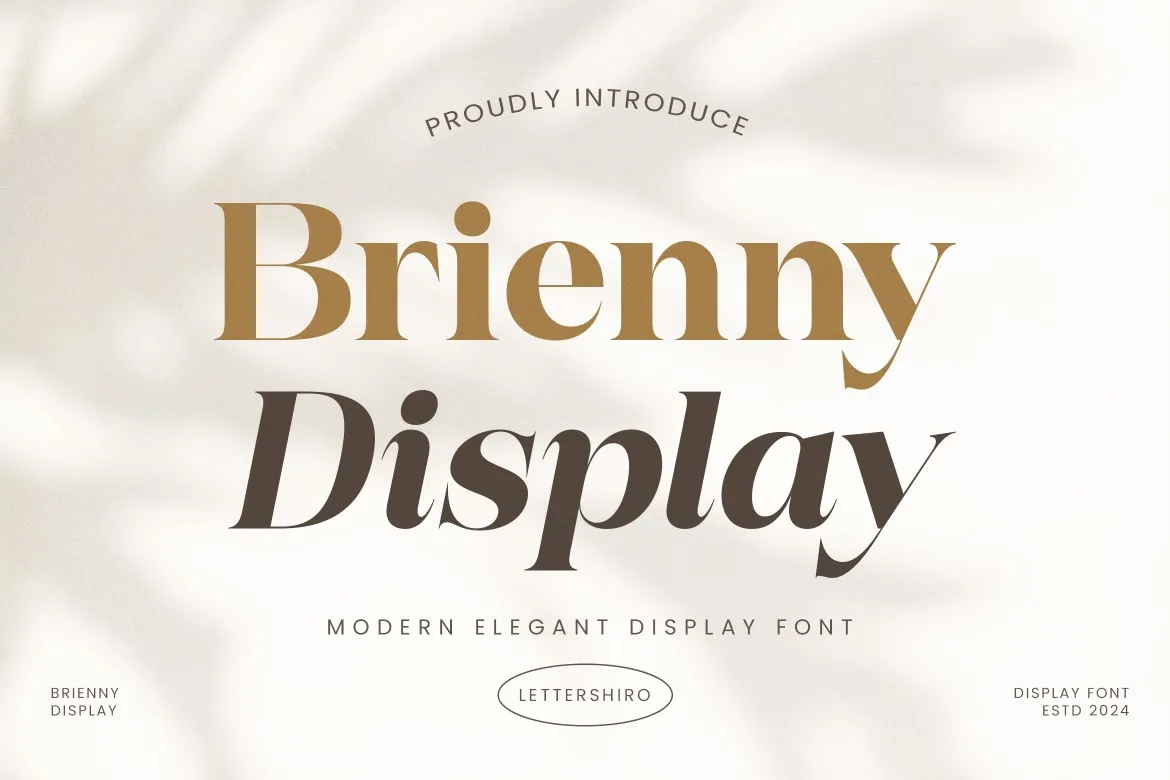
Do you want a logo that reflects both a professional and stylish identity? Just look at Brienny! It is a modern serif font with elegant curves, great to choose for skincare and decor logos.
2. Grand Retro
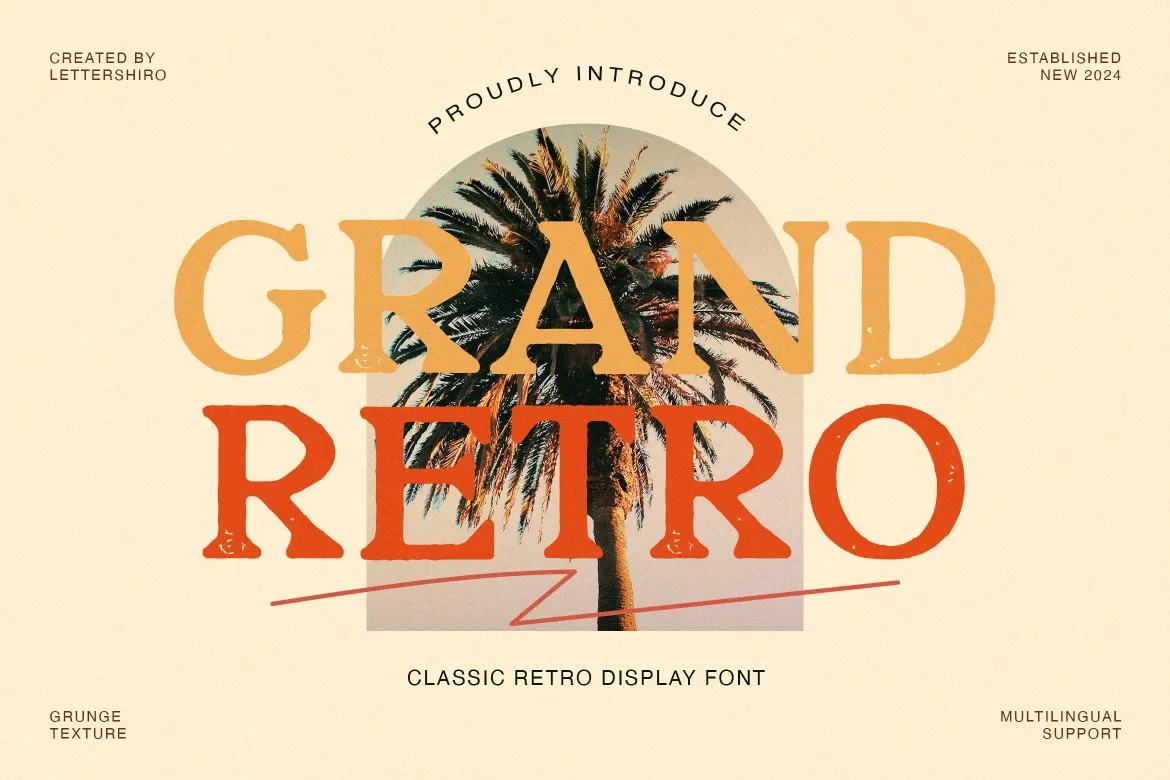
Here is a vintage display font that combines nostalgic charm with modern elegance for drink, barber, and clothing logos. Give a classic, old-school feel with a stylish contemporary twist.
3. Maxim
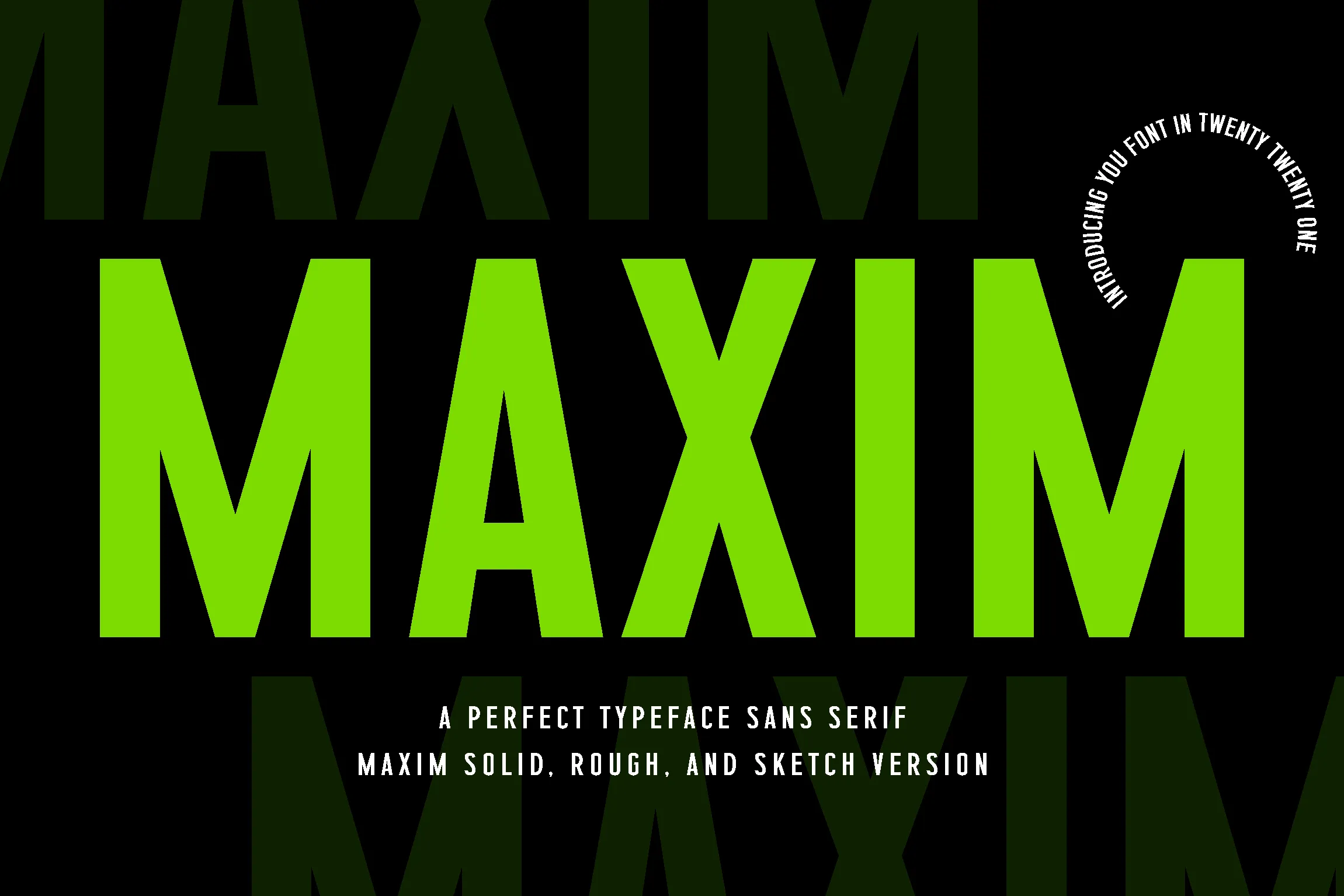
Maxim is a go-to pick for sports branding. Its bold, dynamic style makes it perfect for designs that need to stand out. This is one of the cool fonts for logos that leave a strong impression in both print and digital media.
4. Brown Chocolatte
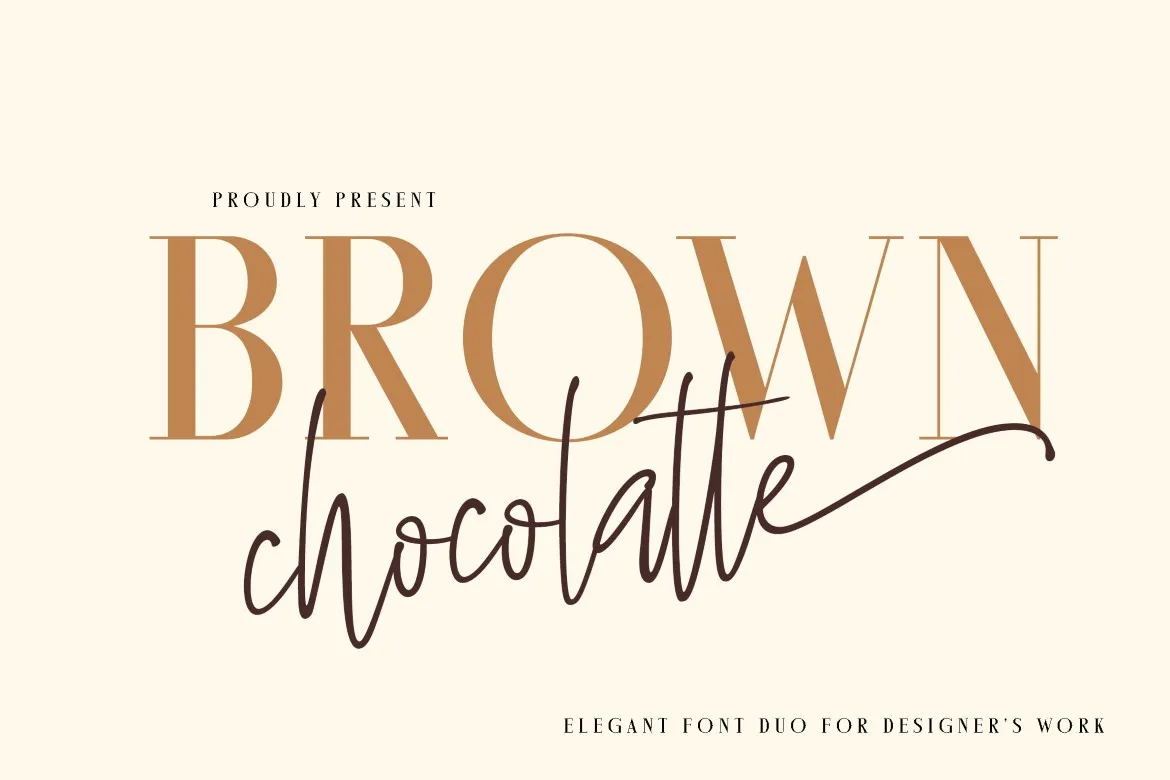
It has a creative yet polished touch, especially for photo studio branding. This font combines a refined serif and a graceful script that offer flexibility.
5. Bellova
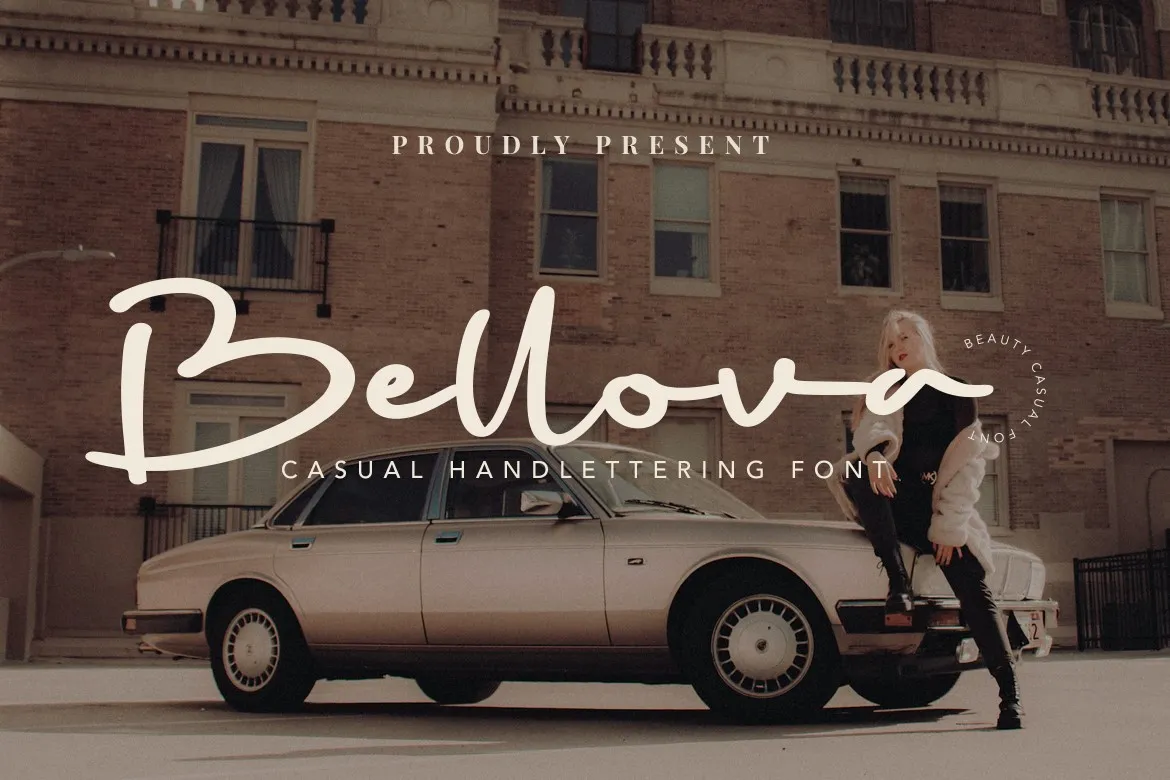
Skin care, interiors, and wedding planners’ logos work well with this font. It offers smooth, flowing lines that combine casual charm with modern elegance, perfect for adding a unique and artistic touch.
6. Alena
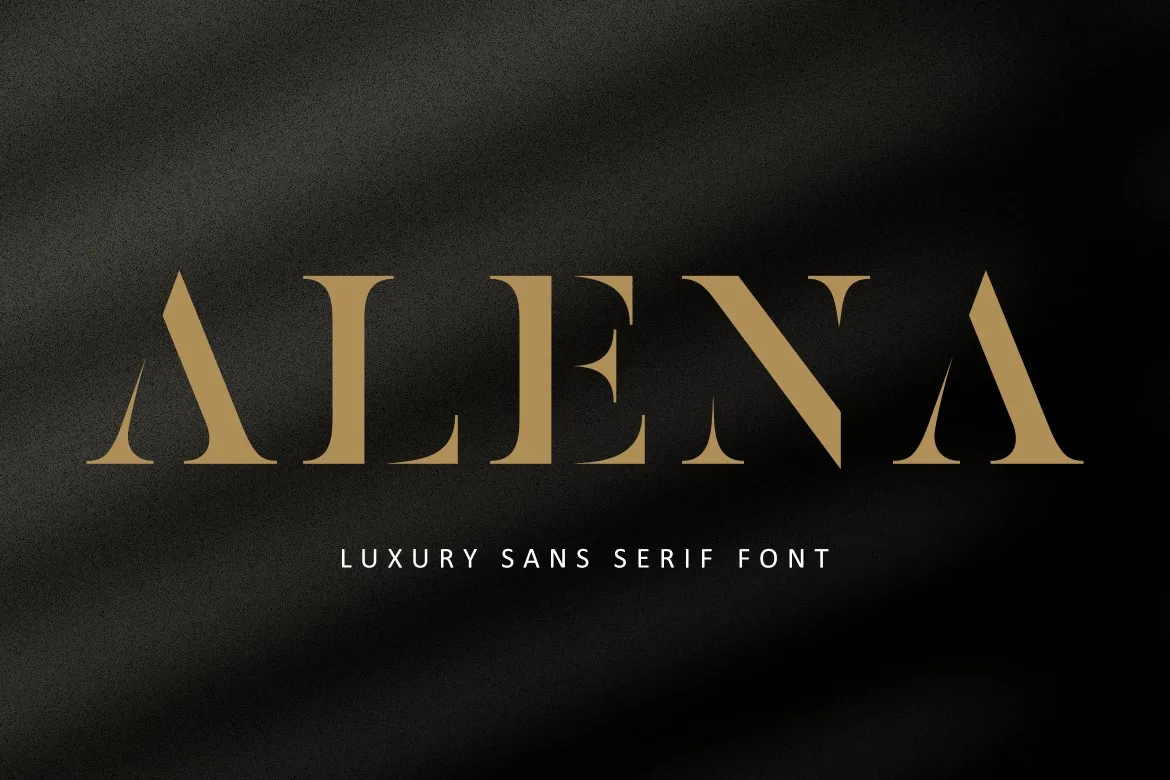
Still confused about picking a font that captures timeless vibes with a modern touch? Alena offers clean lines and graceful curves, making it the perfect choice for high-end logo designs.
7. Lettersiro Font Duo
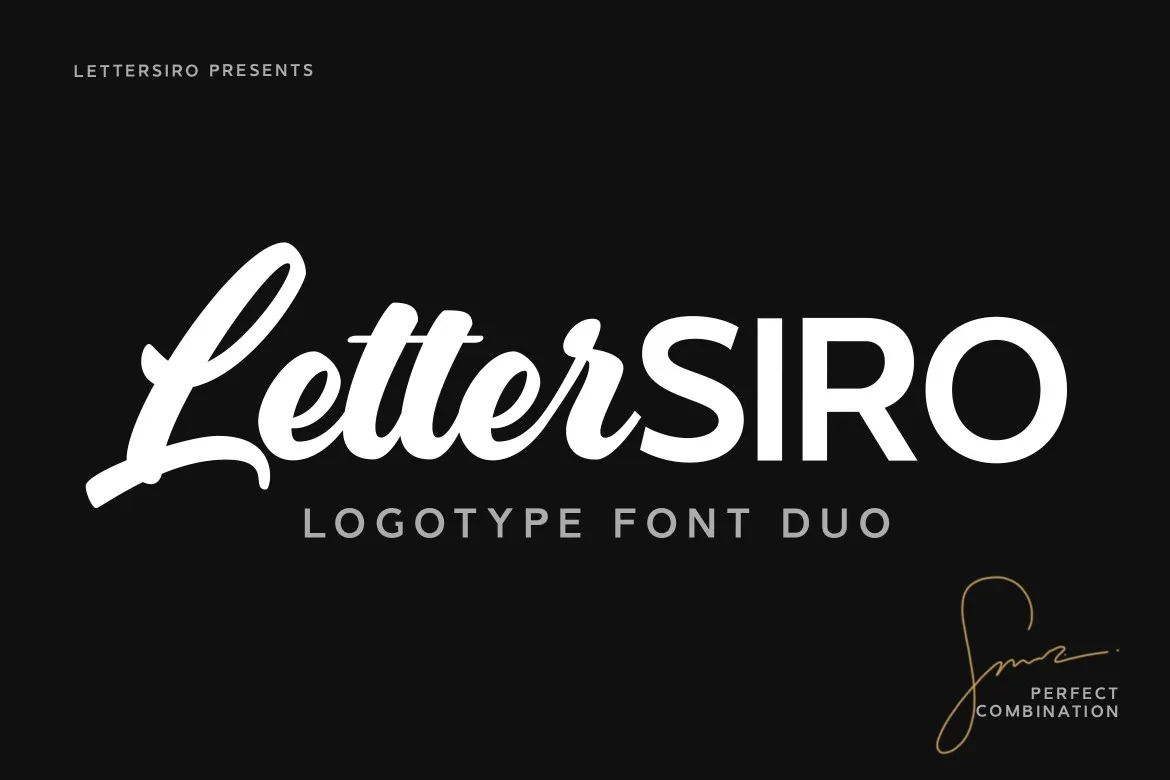
Lettersiro Font Duo combines an elegant script with a clean sans-serif, creating a modern, stylish blend perfect for logos, signatures, and wedding designs. It stands out among the top fonts for logos thanks to its versatility and balanced aesthetic.
8. Gloria
Gloria perfectly blends modern style with classic elegance. This romantic serif font, with its graceful ligatures, brings charm and sophistication to hotel or restaurant logos.
9. Amsterdam Serif
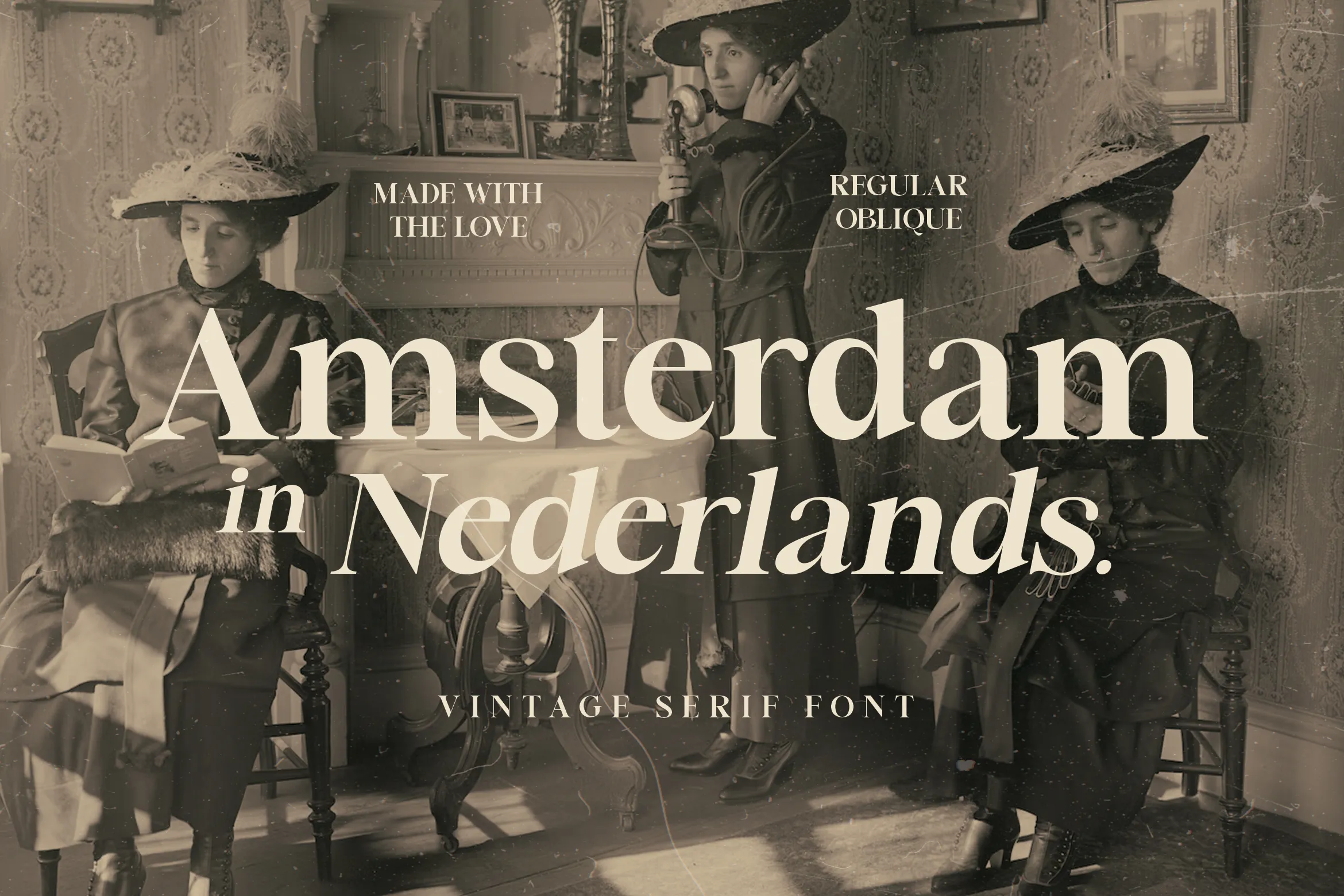
Amsterdam Serif is an elegant serif font available in regular and oblique styles. It combines modern and classic elements, making it one of the most interesting fonts for luxury brand logos.
10. Deluxe Resto
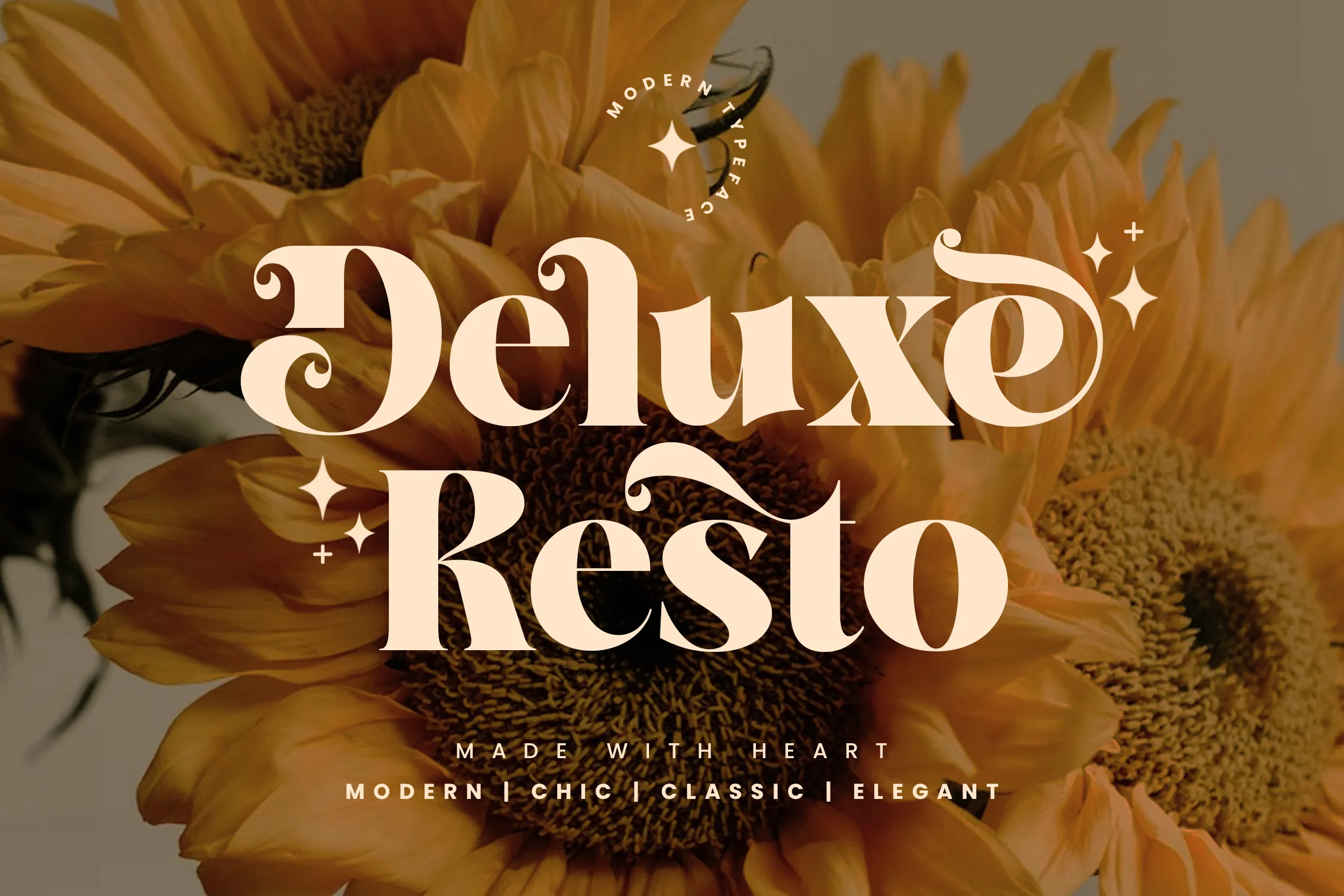
Deluxe Resto adds a romantic, sophisticated flair with its elegant ligature serif style. Designed with care, it blends classic charm and modern elegance, earning its place among the best fonts for logos, aimed to feel both stylish and unique.
11. Brocky Logotype Font
Brocky is a bold font duo combining clean sans serif with expressive handwritten style. With its retro flair and dynamic look, it’s perfect for logos and headlines that need a confident, nostalgic vibe.
12. Hunters
This is the best font for a logo, featuring a premium script font designed to make bold, lasting impressions. With sleek, confident strokes, it’s trusted by global brands for high-end logos that demand impact.
13. Dillova
Save this font if you’re aiming for a logo with playful vibes! With bold curves and a unique personality, Dillova adds a confident, creative flair to any design.
14. Sandiego
Whether you’re designing a heartfelt logo, a stylish quote, or elegant branding, this handwritten font adds a perfect blend of luxury and personality to make your message truly resonate with the intended audience.
15. Halva
If you’re looking for a logo that’s both clean and professional, Halva is the perfect fit. Its rounded, minimalist design adds clarity and modern style to any branding project.
16. Sunshine
Sunshine gives a vintage vibe while adding charm and character to your logo. It also works well for retro posters, signage, and photography branding, with a timeless feel.
17. Rentuck
Capture both nostalgic charm and bold masculinity with Rentuck. Featuring strong curves and vintage flair, this retro serif font is perfect for logos that need character and confidence.
18. Holland Elegant Font
Among the best fonts for logos, this one is perfect for creating a logo that feels personal, timeless, and full of character with its graceful curves and the charm of a handwritten signature.
Find the Best Fonts for Logos and Build a Strong Brand Identity